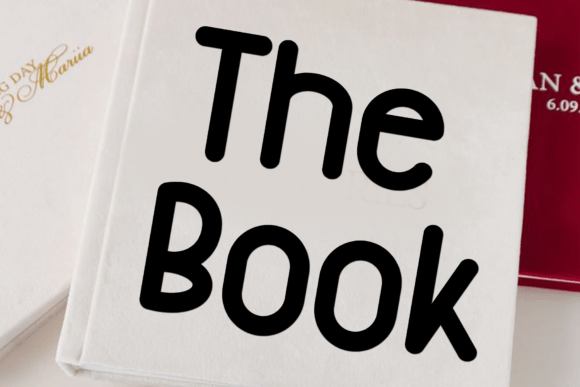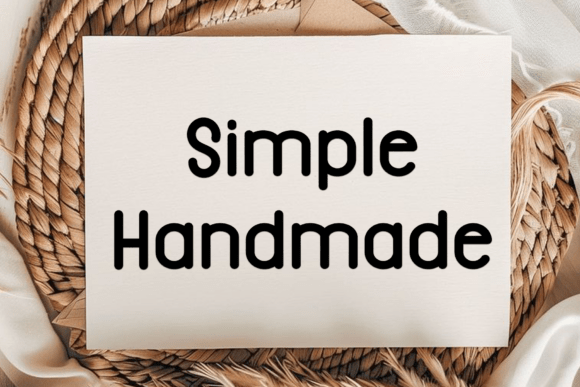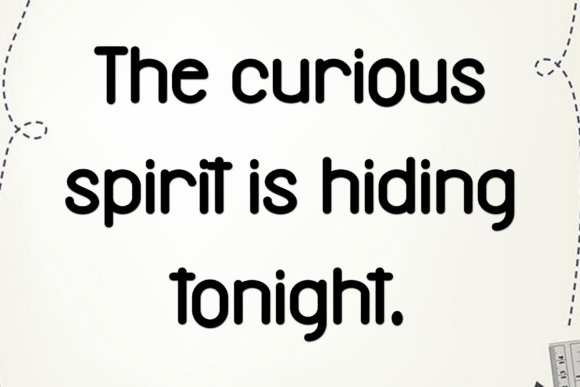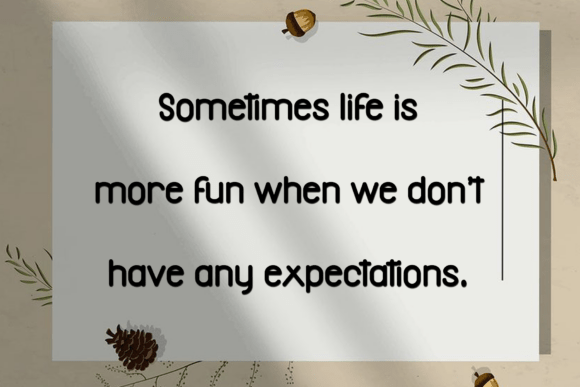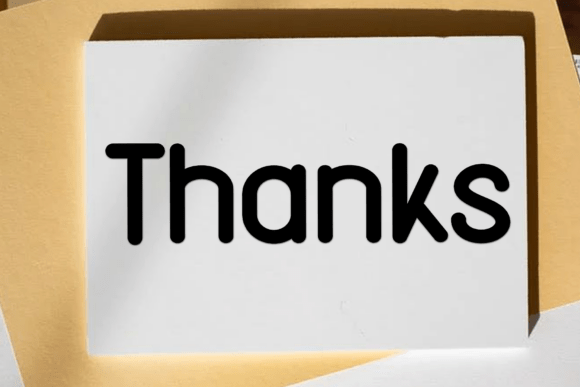
Unveiling the Magic of Christmas History Font: A Designer’s Delight
As the festive season approaches, designers and crafters are on the lookout for unique and captivating fonts to elevate their creative projects. Among the numerous font styles available, Christmas History Font stands out as a beautiful and eye-catching sans-serif font that is sure to mesmerize audiences. Designed with a soft, unique touch, this font boasts distinctive strokes that give it a special character, making it both meaningful and versatile for future use.
The Allure of Christmas History Font
Christmas History Font is a masterful blend of modern and classic design elements. Its soft, rounded edges and smooth curves create a warm and inviting aesthetic that is perfect for a wide range of design projects. Whether you’re working on a festive holiday card, a seasonal poster, or a decorative craft, this font is sure to add a touch of magic to your creations.
One of the standout features of Christmas History Font is its versatility. With a wide range of characters, you can experiment with different combinations to create unique and eye-catching designs. The font’s distinctive strokes and curves give it a special character that sets it apart from more traditional font styles.
The font’s natural style makes it an excellent choice for a wide range of products, from digital designs to print materials. Whether you’re creating social media graphics, blog posts, or marketing materials, Christmas History Font is sure to enhance your designs and make them appealing to a broad audience.
Christmas History Font is a designer’s dream come true, offering endless creative possibilities for a wide range of projects. Here are just a few ideas to get you started:
- Holiday cards and invitations: Add a touch of festive cheer to your holiday cards and invitations with Christmas History Font.
- Seasonal posters and flyers: Create eye-catching posters and flyers that showcase your brand’s personality and style.
- Decorative crafts: Use Christmas History Font to add a personal touch to your decorative crafts, such as handmade ornaments, gift tags, and more.
- Digital designs: Incorporate Christmas History Font into your digital designs, including social media graphics, blog posts, and marketing materials.
Why Choose Christmas History Font?
So why choose Christmas History Font for your design projects? Here are just a few compelling reasons:
- Unique and eye-catching design: Christmas History Font boasts a distinctive and captivating design that is sure to stand out.
- High-quality design: The font is designed with high-quality craftsmanship, ensuring a professional finish.
Christmas History Font is a beautiful and captivating sans-serif font that is perfect for designers and crafters looking to add a touch of festive magic to their creative projects. With its unique and eye-catching design, versatility, and seamless compatibility, this font is sure to become a staple in your design toolkit. So why wait? Download Christmas History Font today and start creating stunning designs that will delight audiences of all ages.